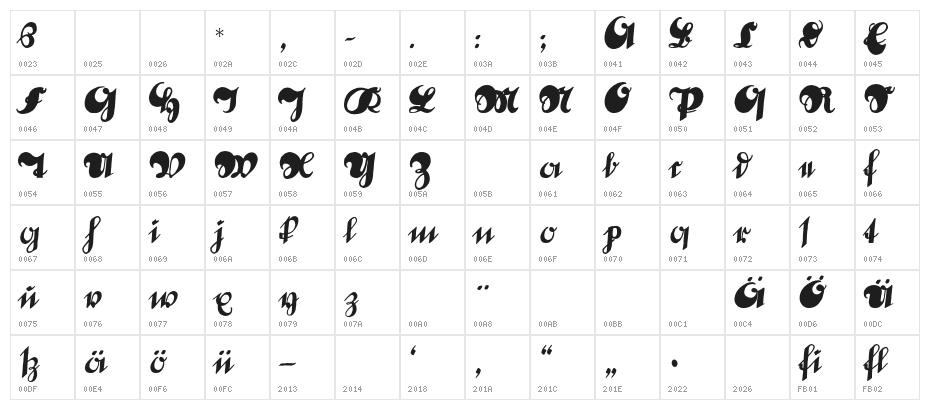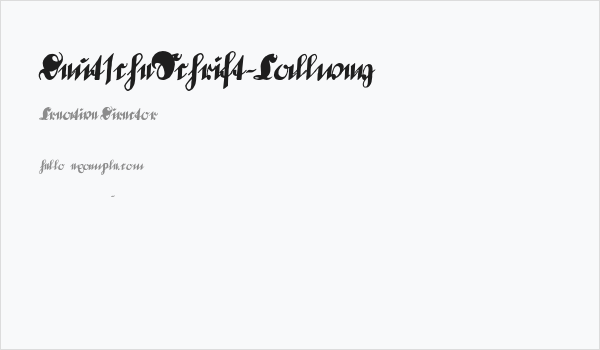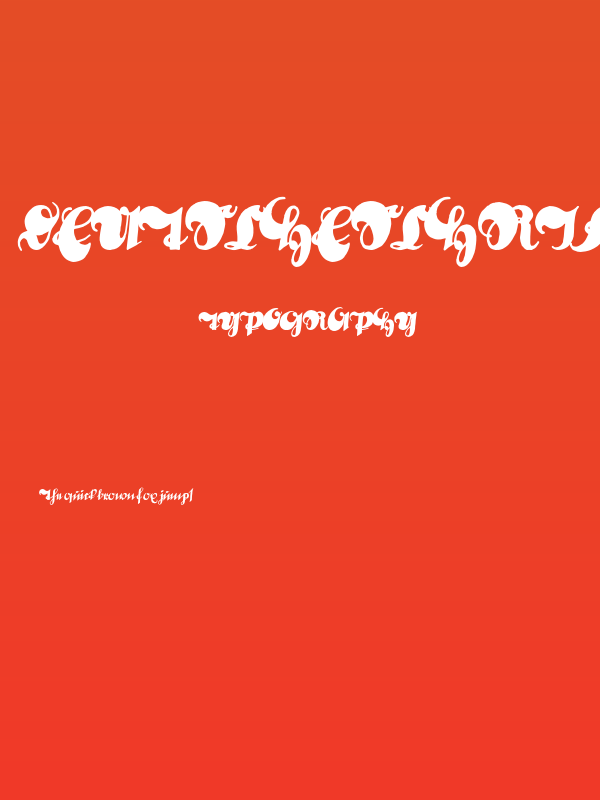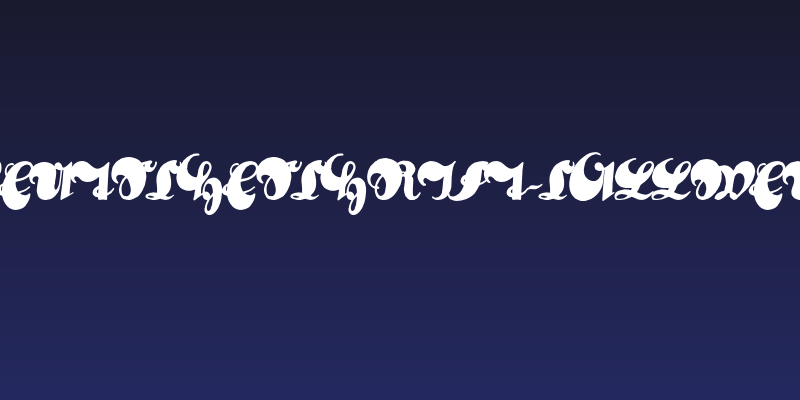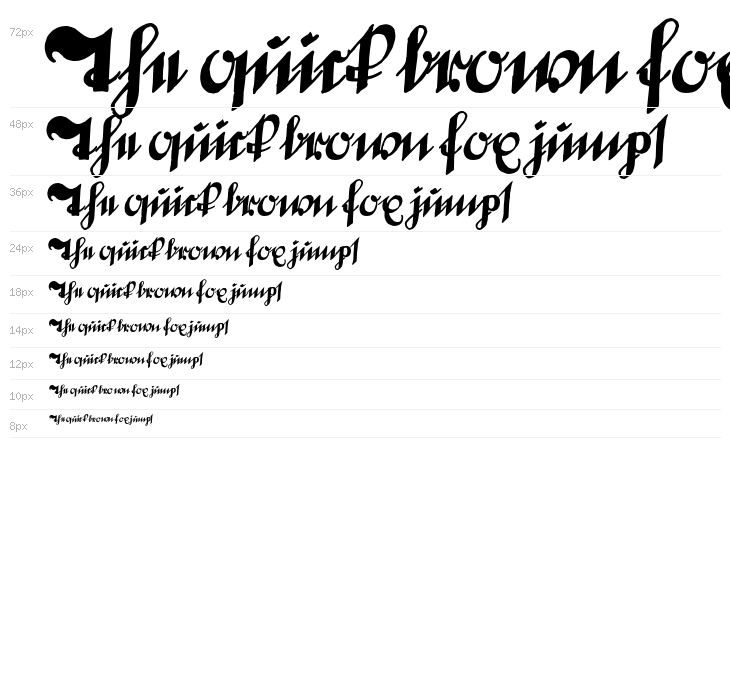
DeutscheSchrift-Callwey Font
DeutscheSchrift-Callwey Description
This font exudes a classic and traditional aura, reminiscent of historical scripts with its intricate and ornate design. The characters are highly stylized, featuring elaborate curves and flourishes that give it a distinctive and elegant appearance. The uppercase letters are bold and commanding, while the lowercase letters maintain a consistent flow, enhancing readability despite the decorative elements. The numbers and special characters are equally ornate, maintaining the overall aesthetic of the font. This style is perfect for projects that require a touch of sophistication and historical charm.
| Use Case | Headlines, Logos, Decorative text |
| Proposed Projects | Ideal for historical documents, wedding invitations, certificates, and branding that requires a vintage touch. |